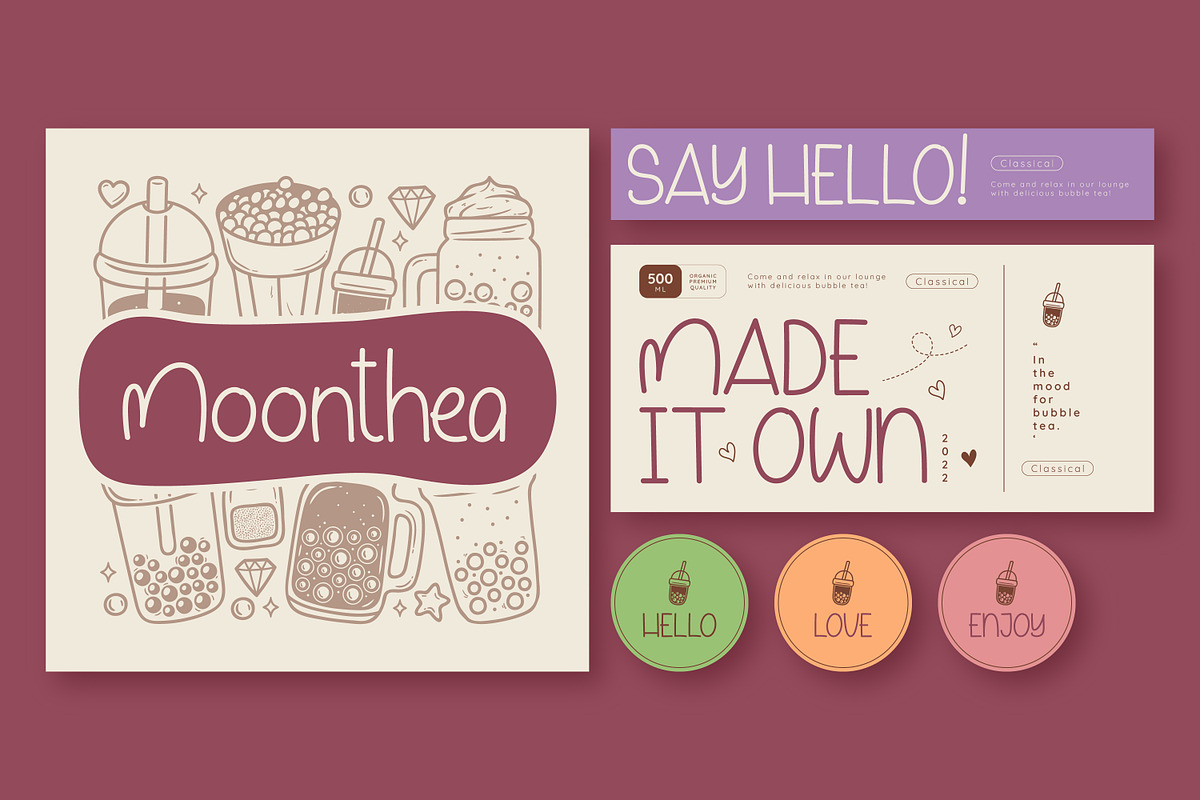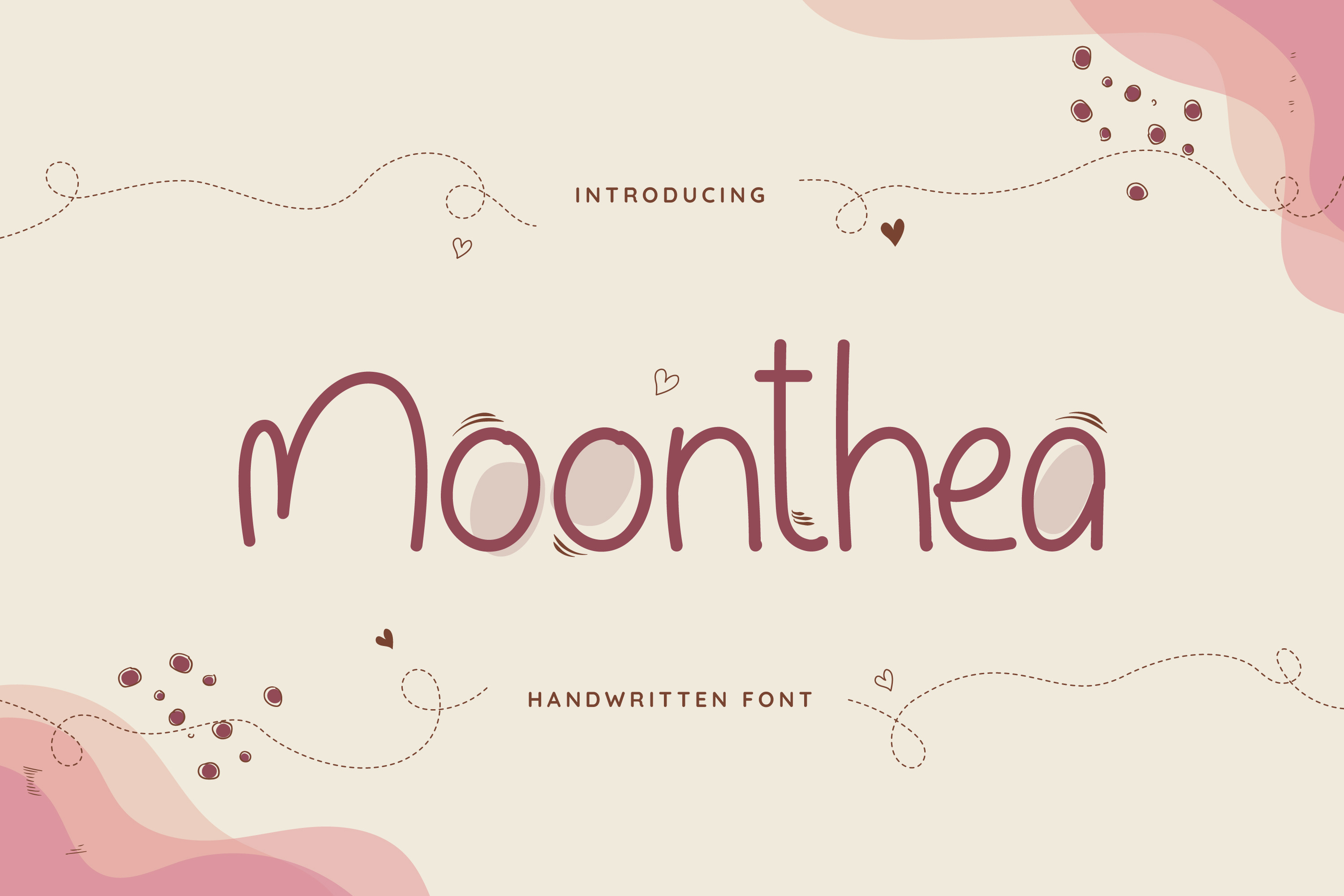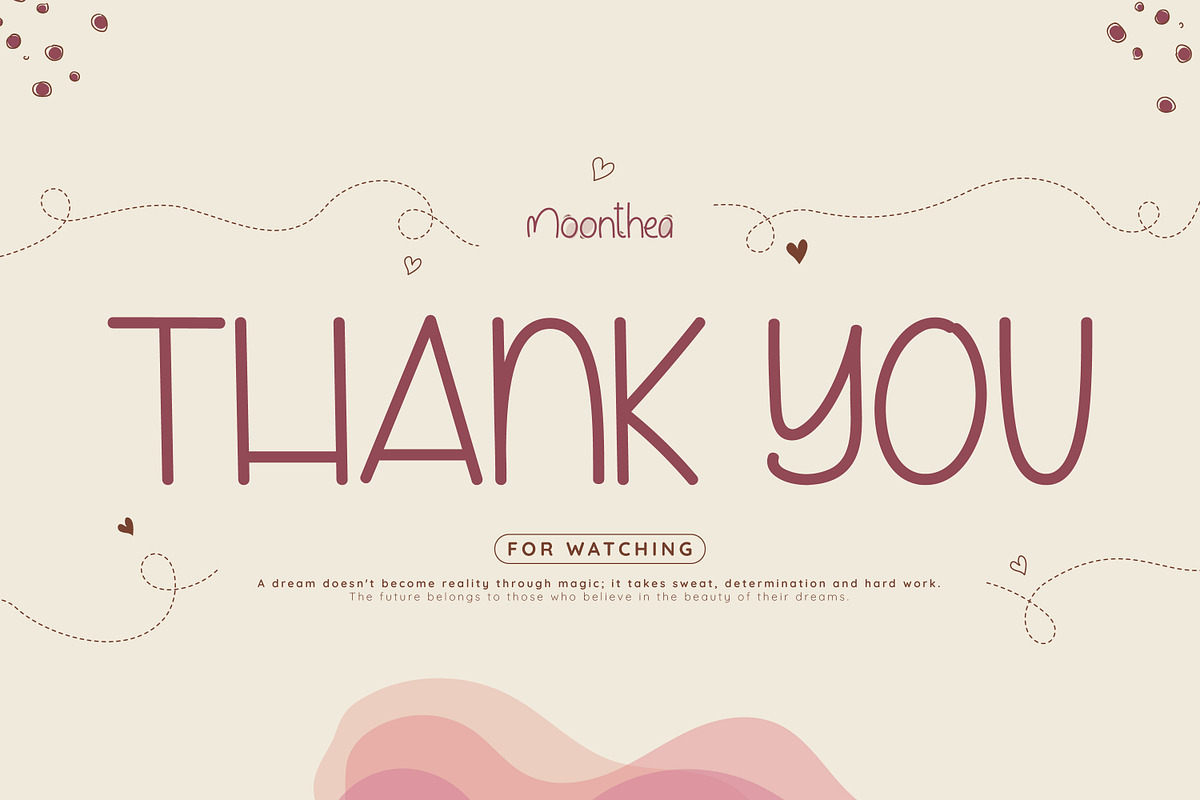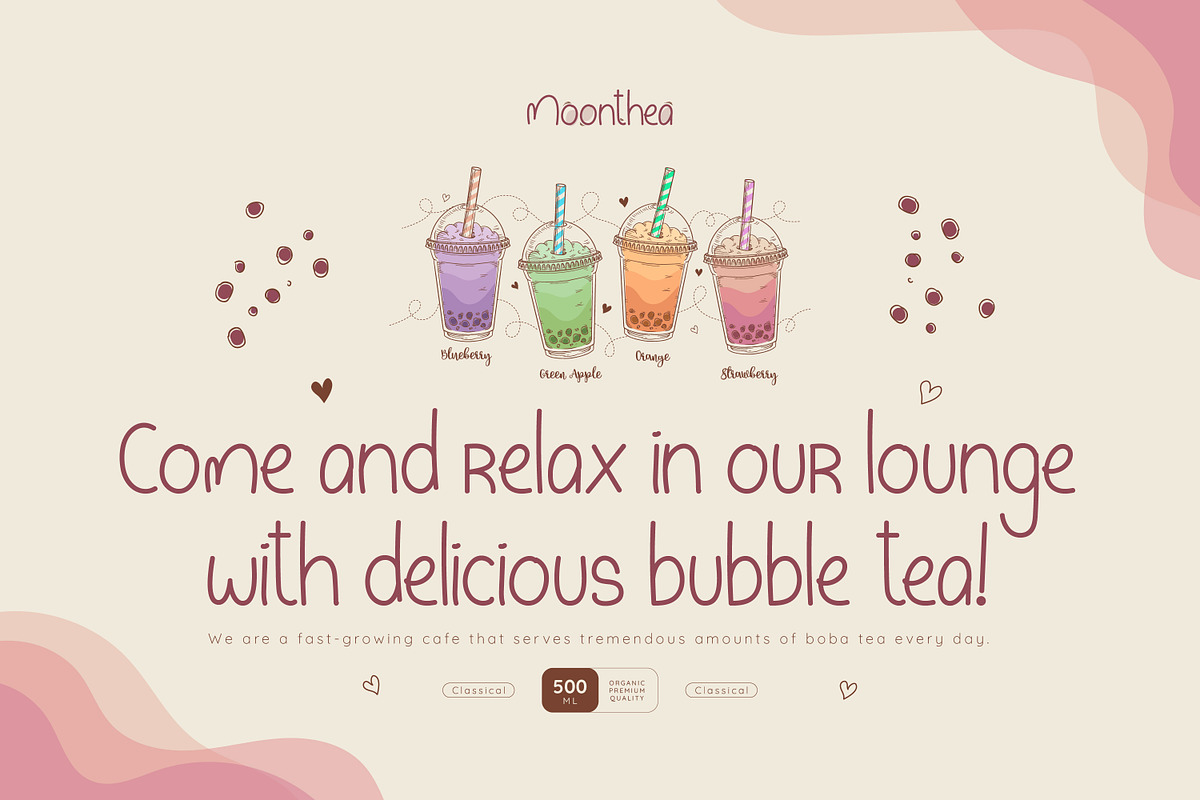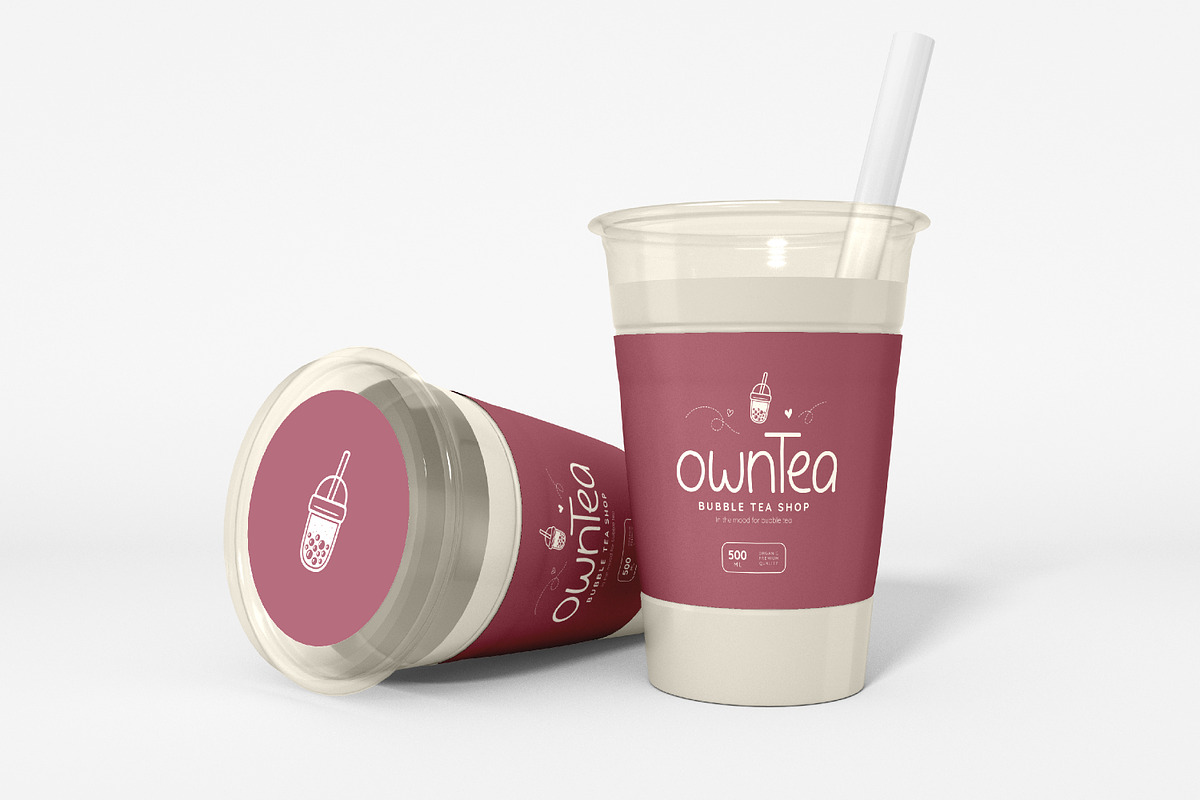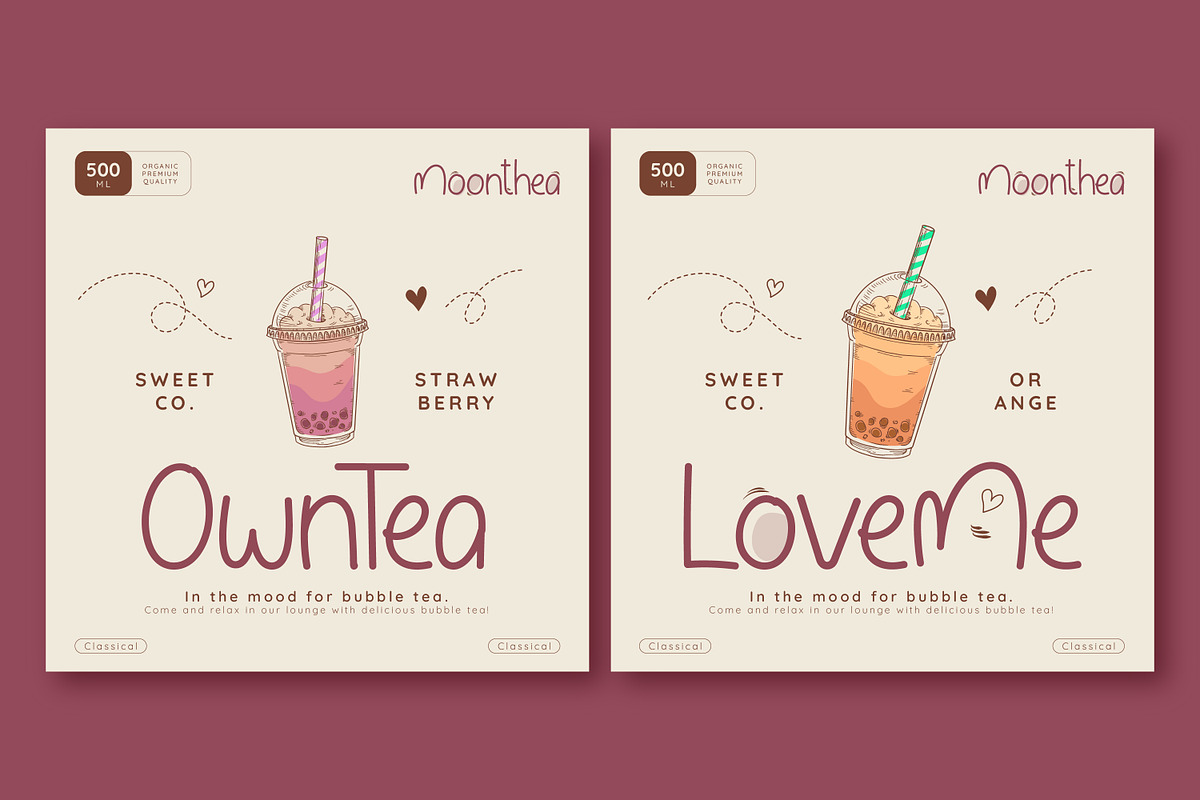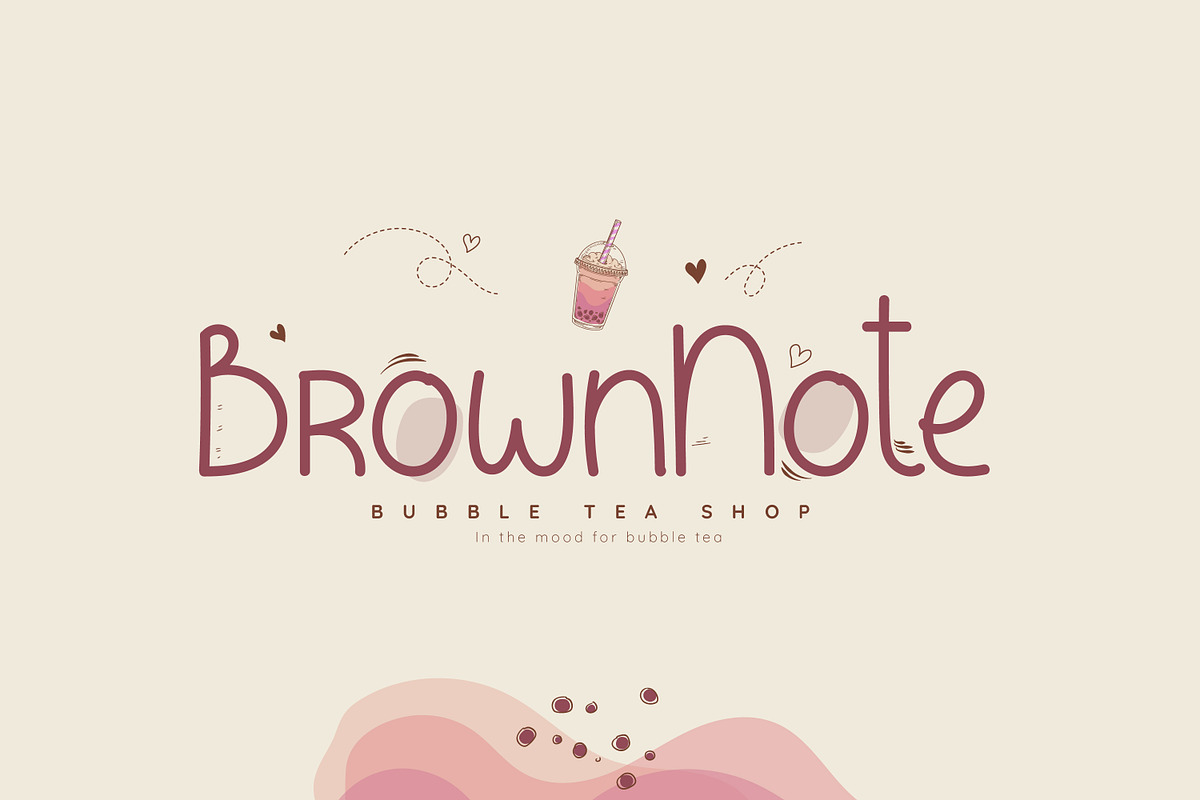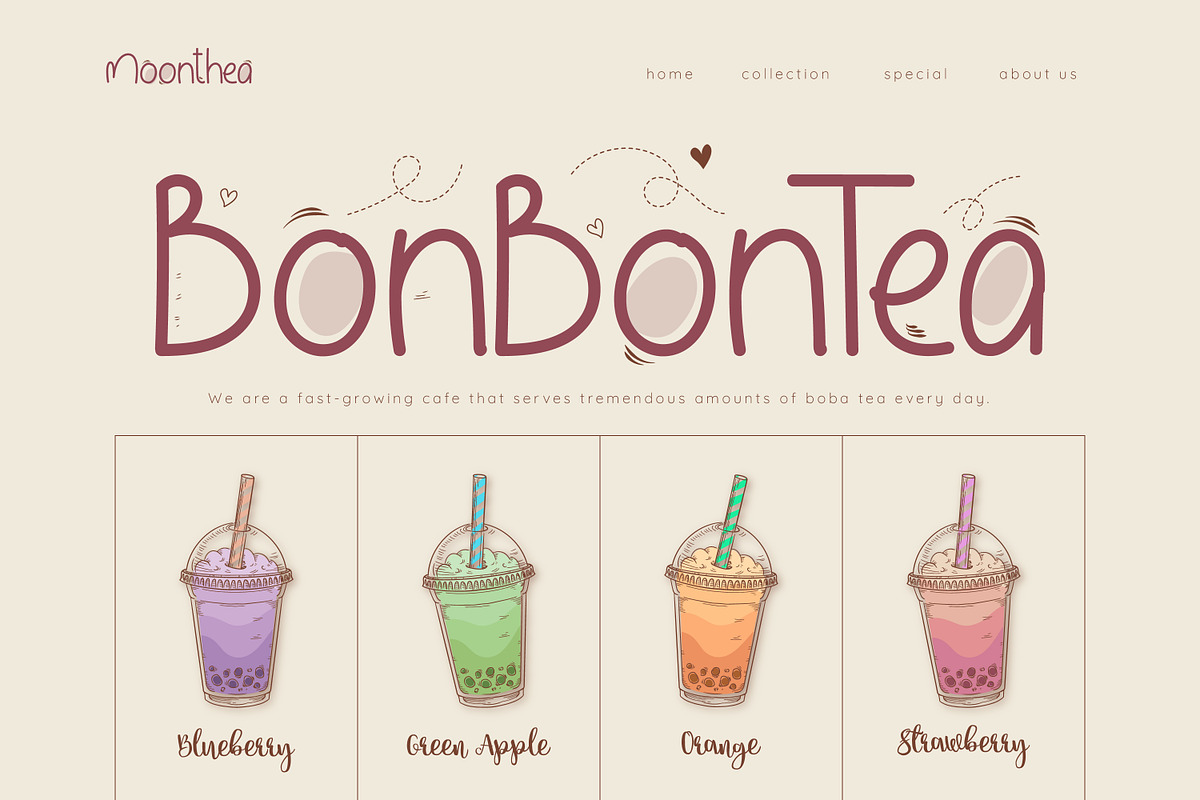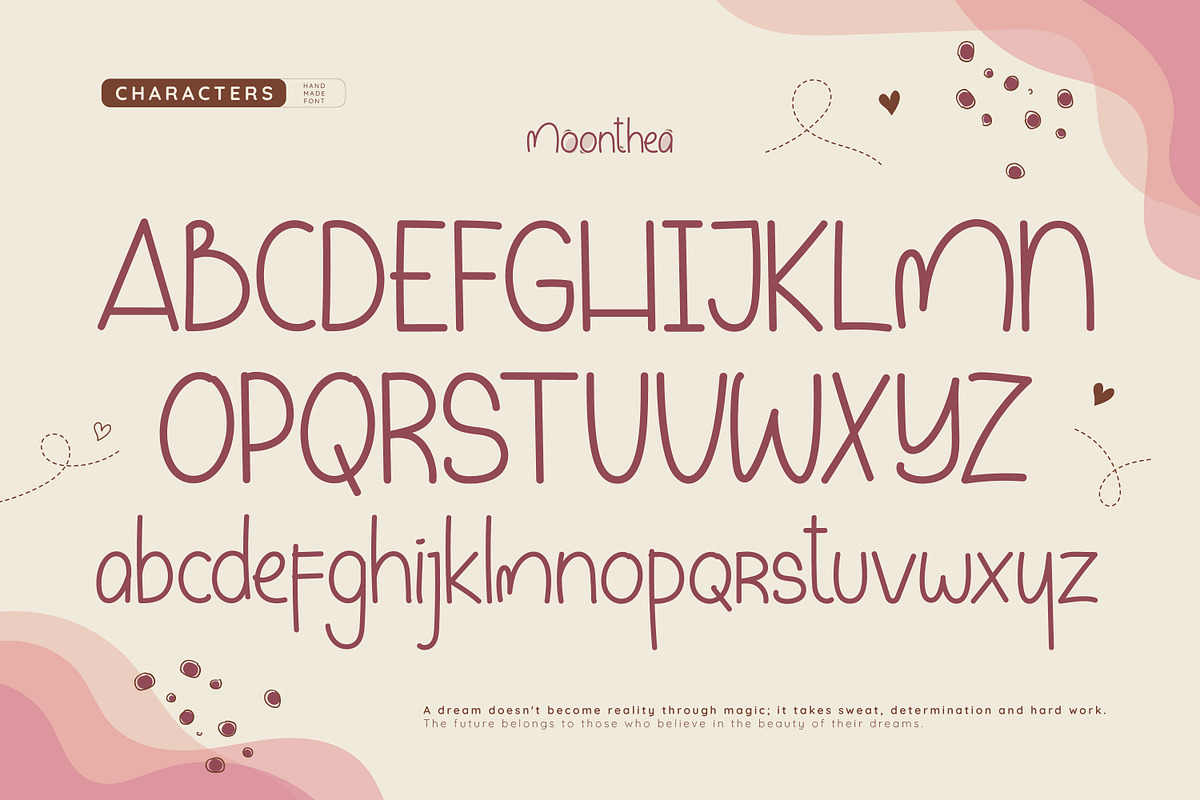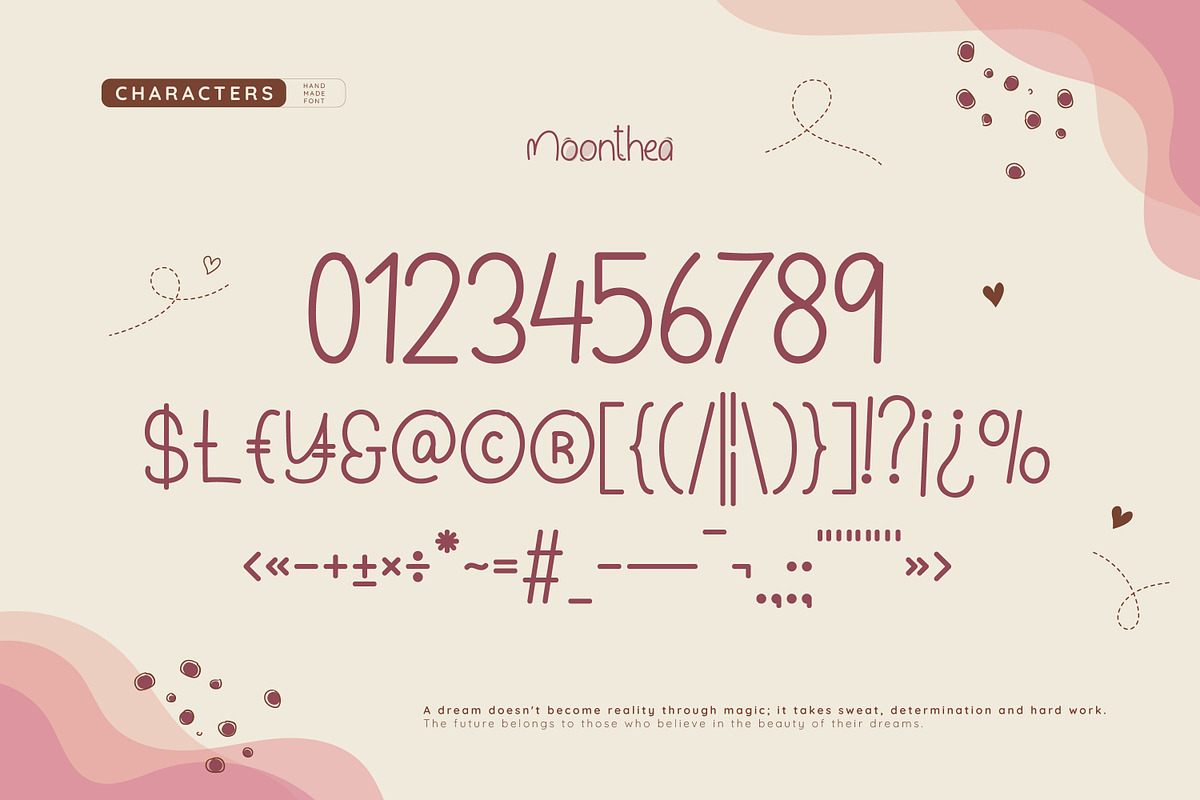
Moonthea Friendly Handwritten Font
Moonthea is a fun and friendly handwritten font. This font is neatly crafted and highly detailed. Whatever the topic, this font will be a wonderful asset to your font library, as it has the potential to enhance any creation.